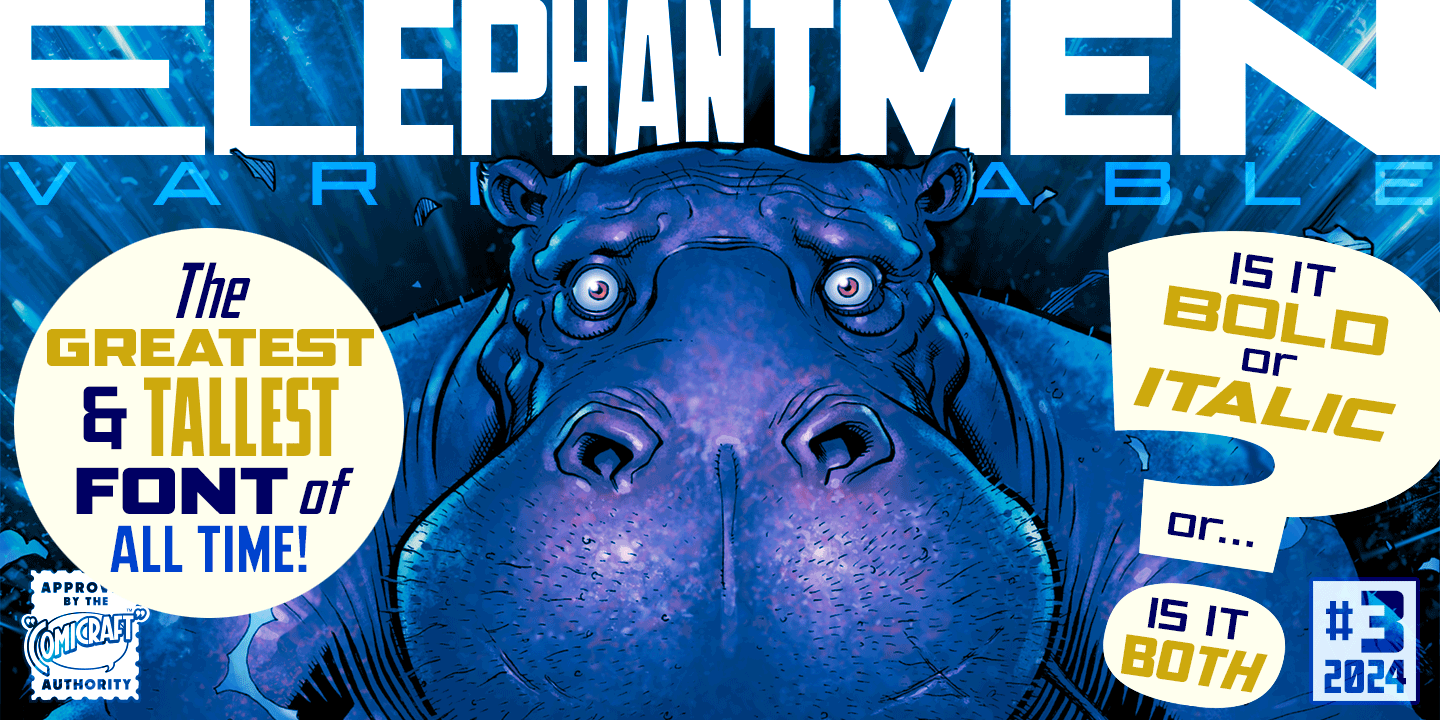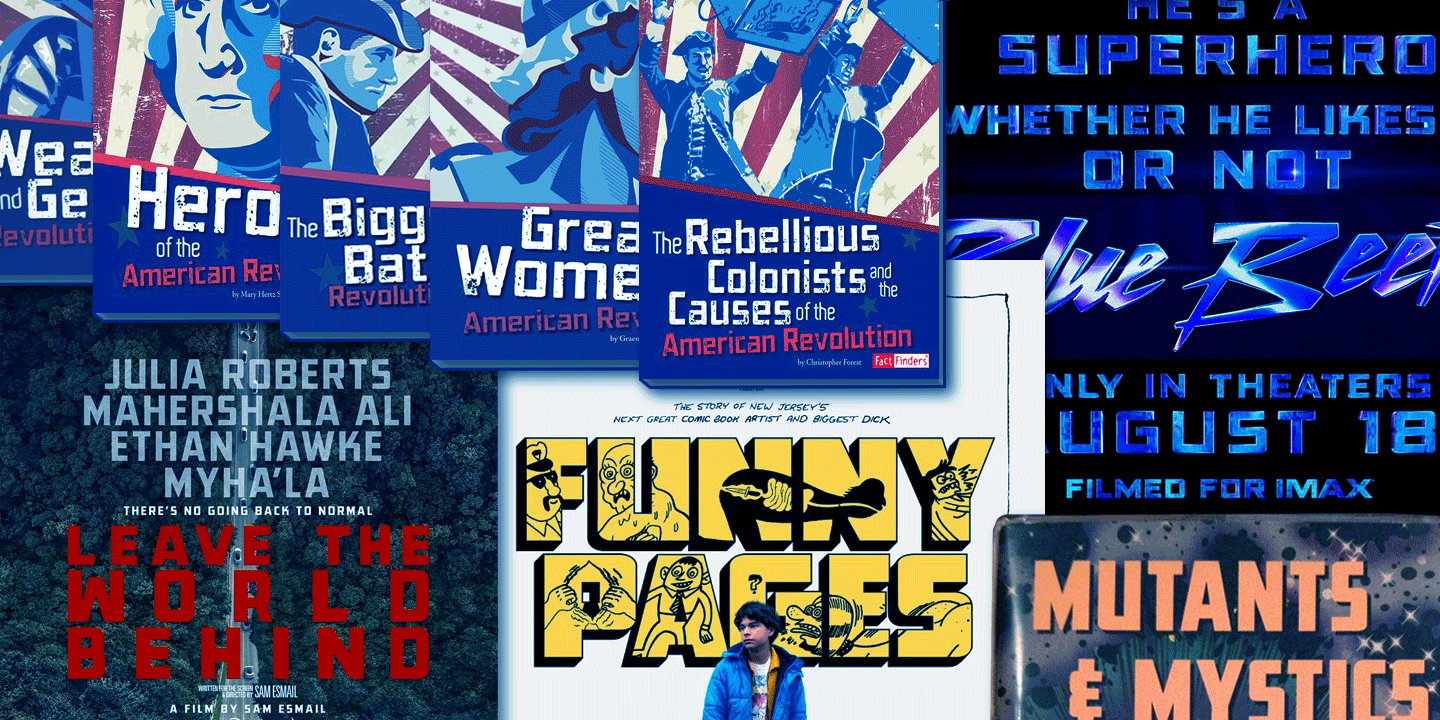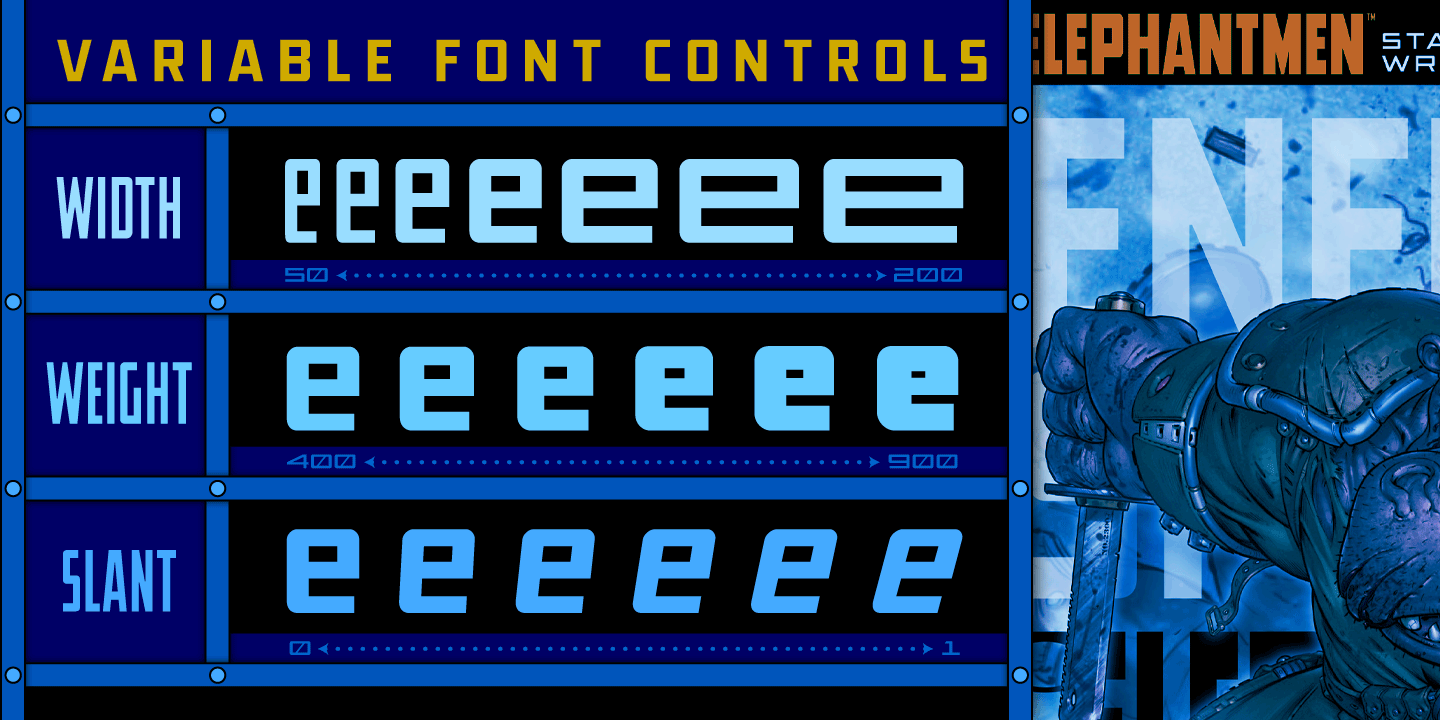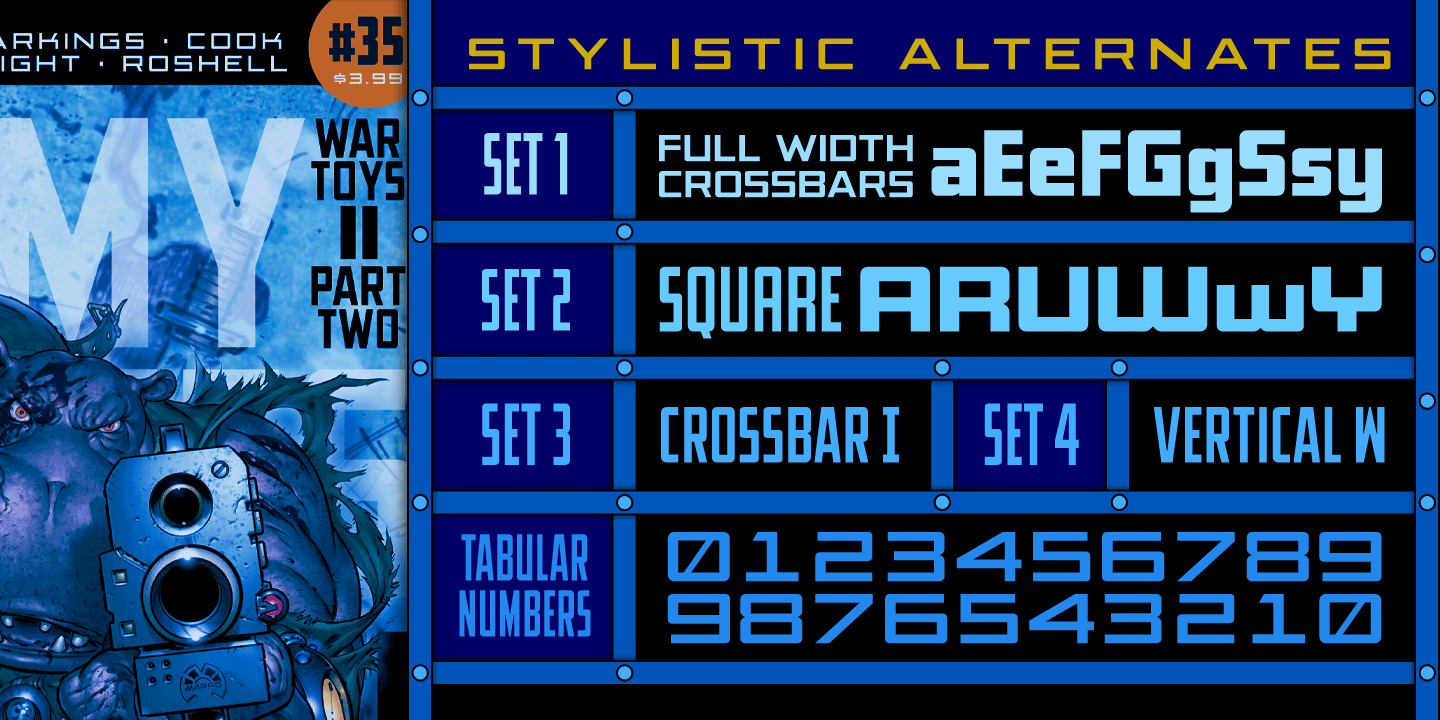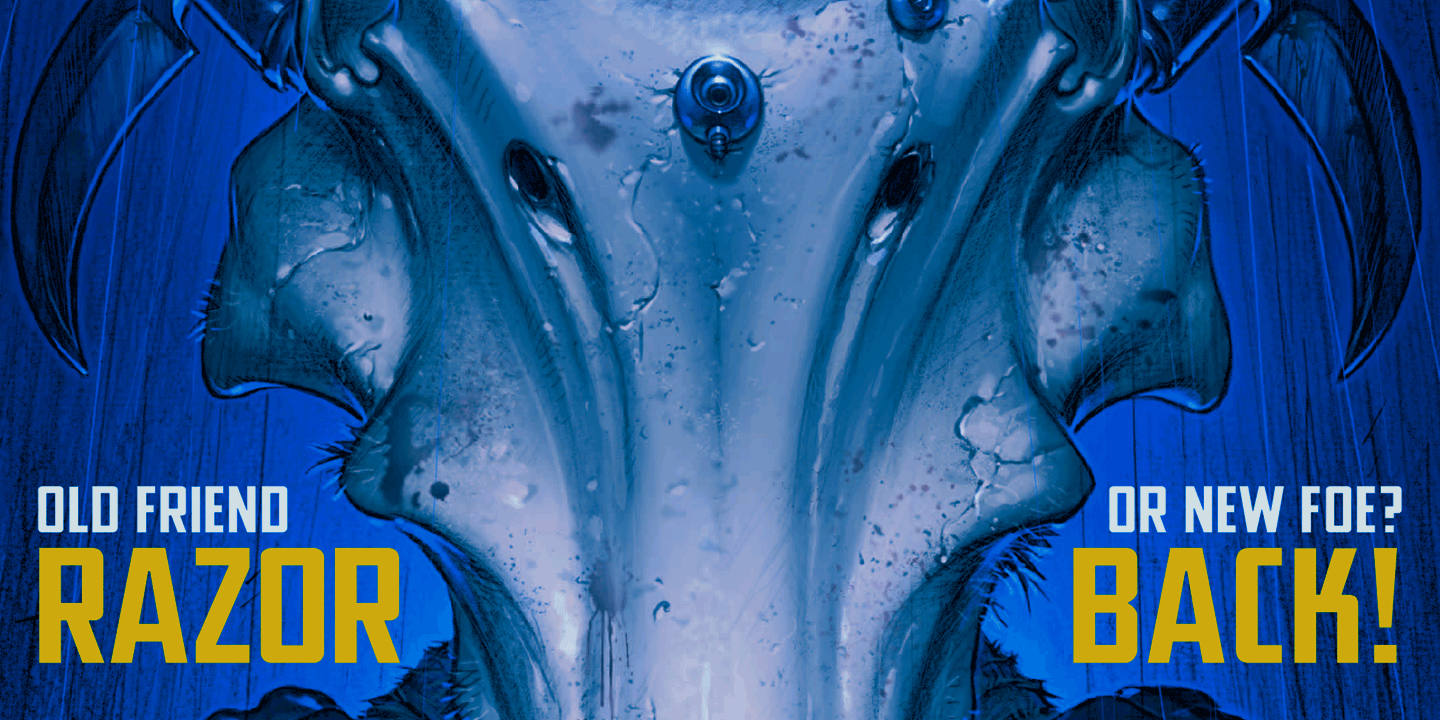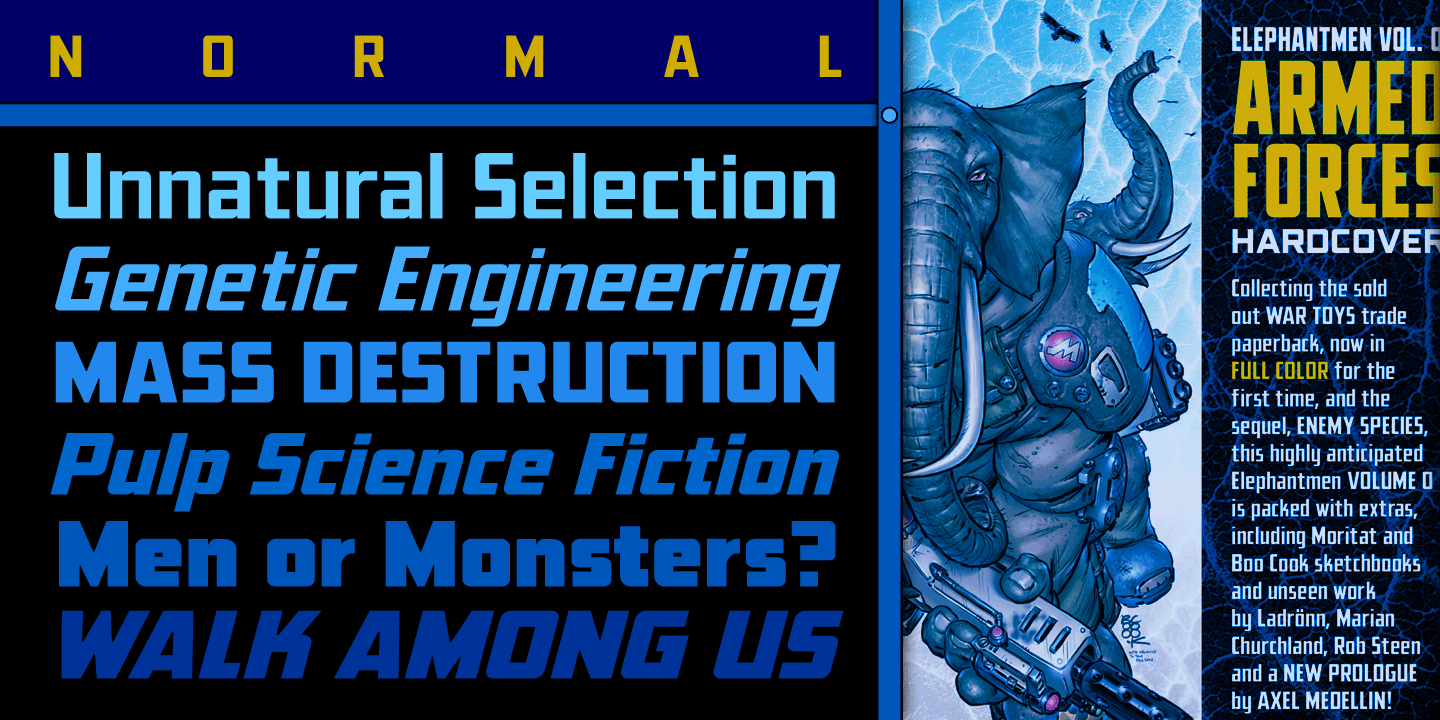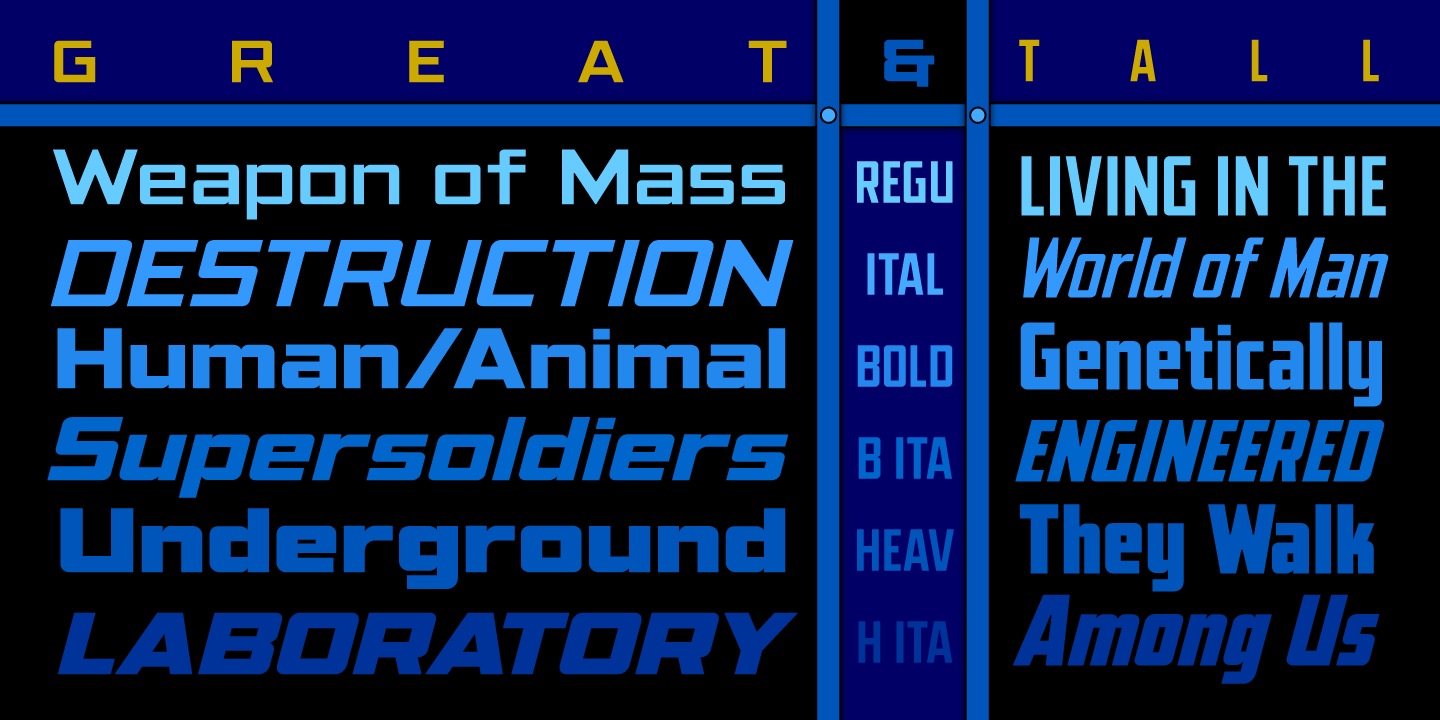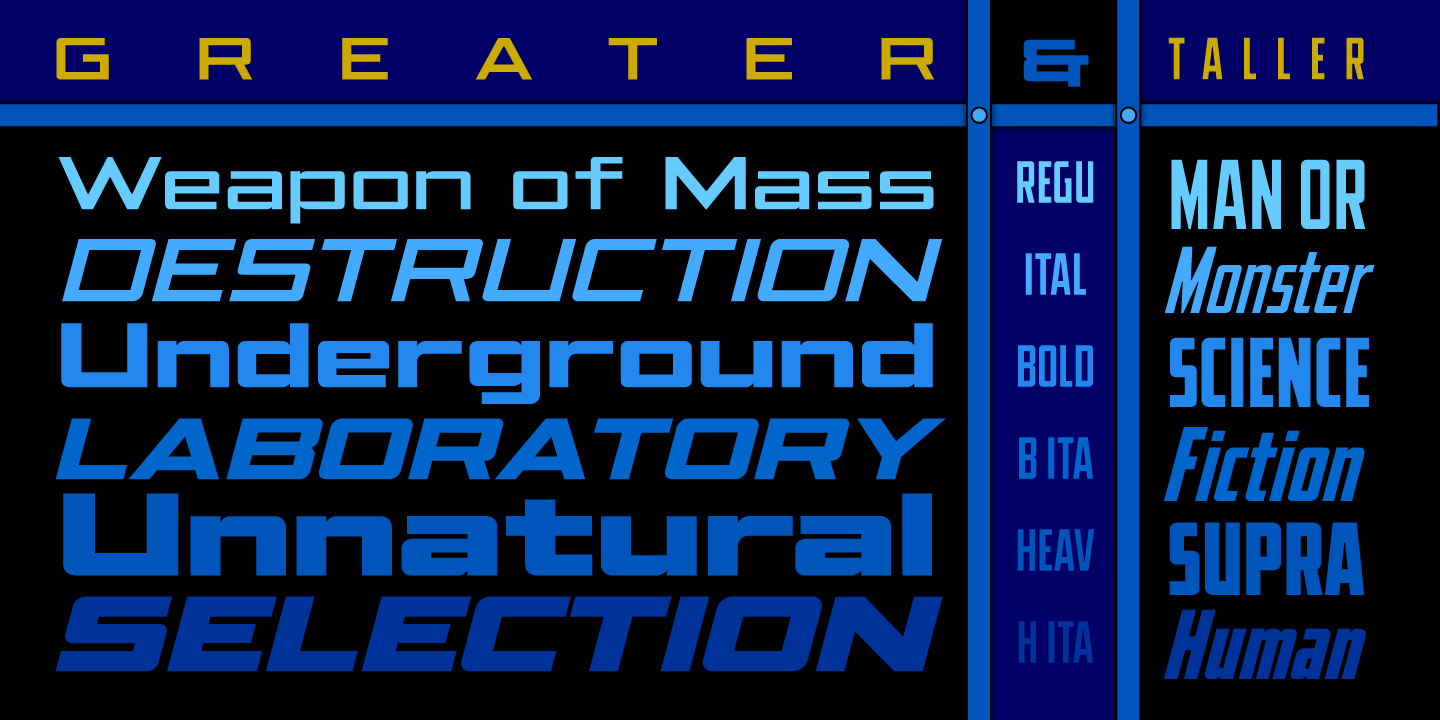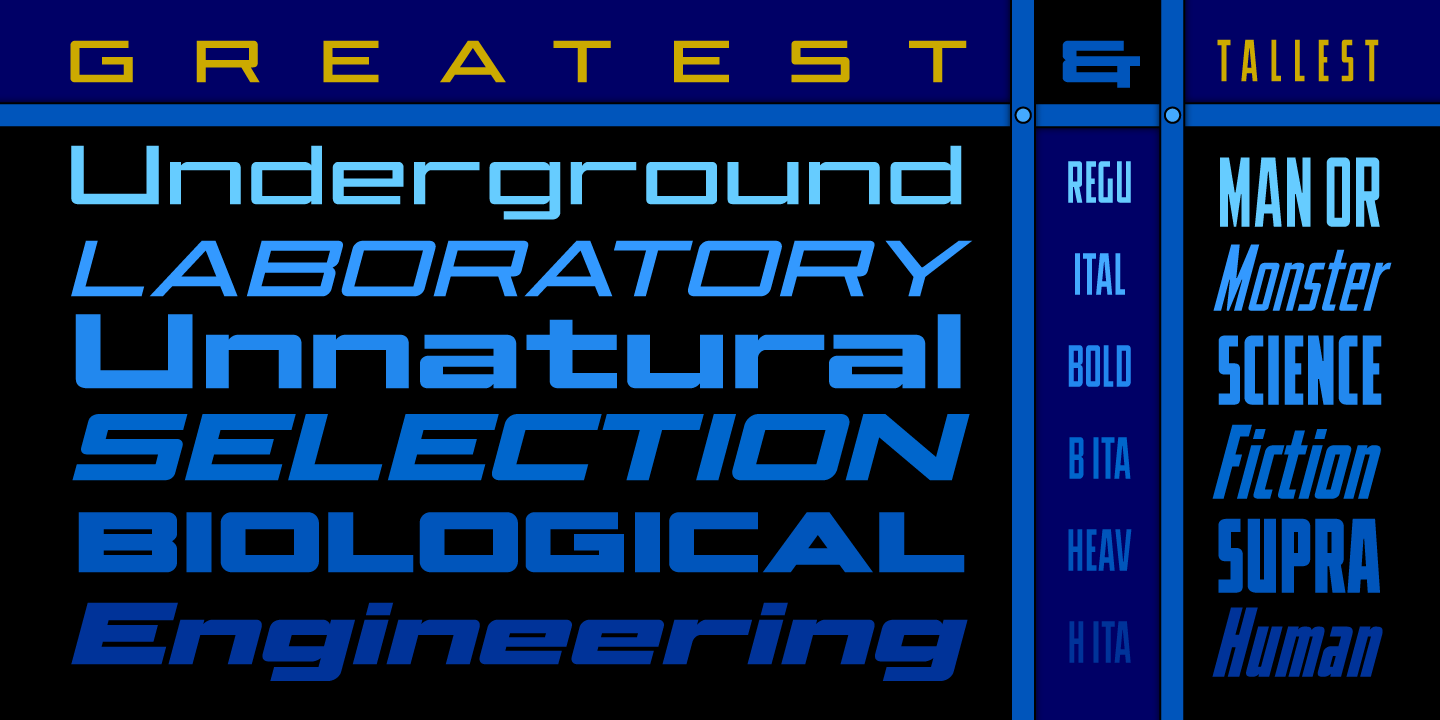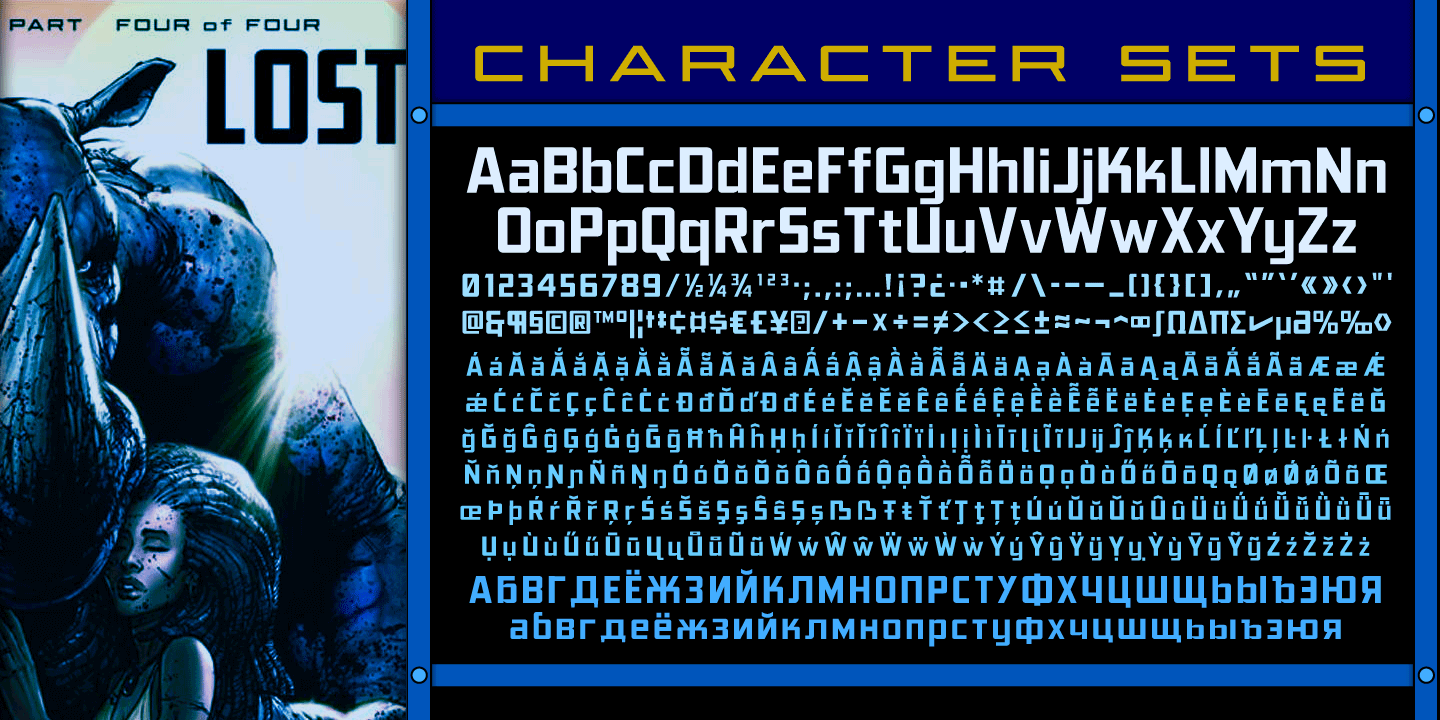
Elephantmen Variable
Font Family by Comicraft Fonts
ELEPHANTMEN: Human/Animal hybrids, created for a war between Africa and China in the 23rd century. Defeated and rehabilitated, they walk among us, hated and feared, and trapped in a world they never made!
The year 2024: mad scientist John Roshell has remastered and redesigned the many widths and styles of Comicraft's ELEPHANTMEN fonts into a single, all-powerful font family: ELEPHANTMEN VARIABLE. Boasting supra-human strength and versatility, this font responds to your every command of Width, Weight and Slant, and is built to tackle the most challenging design battles.
Features:
• Variable font with Width, Weight & Italic axes
• 42 static presets from Regular to Heavy and narrowest to widest
• Four sets of Stylistic Alternates with accents
• Tabular (monospace) numbers & math symbols
• Support for 223 languages including Western & Central Europe, Vietnamese & Cyrillics